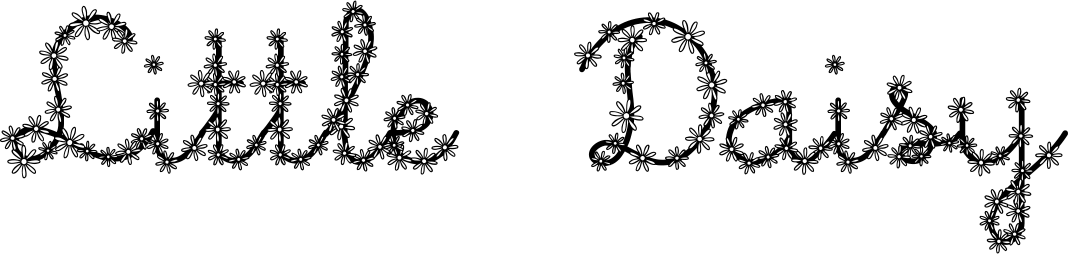
Little Daisy Font
Designed byWest Wind Fonts
Bring a happy and casual vibe to your text design with this spring font. In this case, the letters are coated with flowers and can be suitable for T-shirts, children’s programs, logos, and so on. Note Little Daisy doesn’t contain numbers. For more of this category, don’t miss our boundless website.